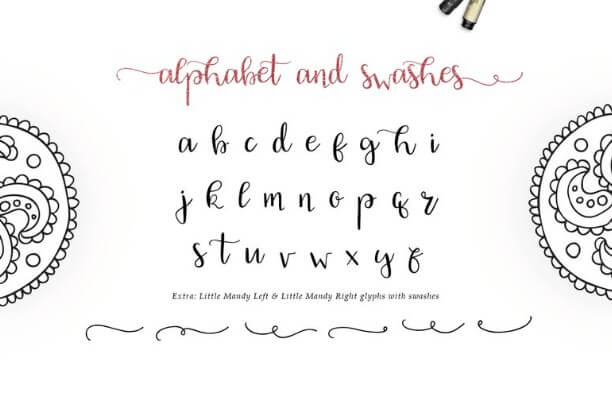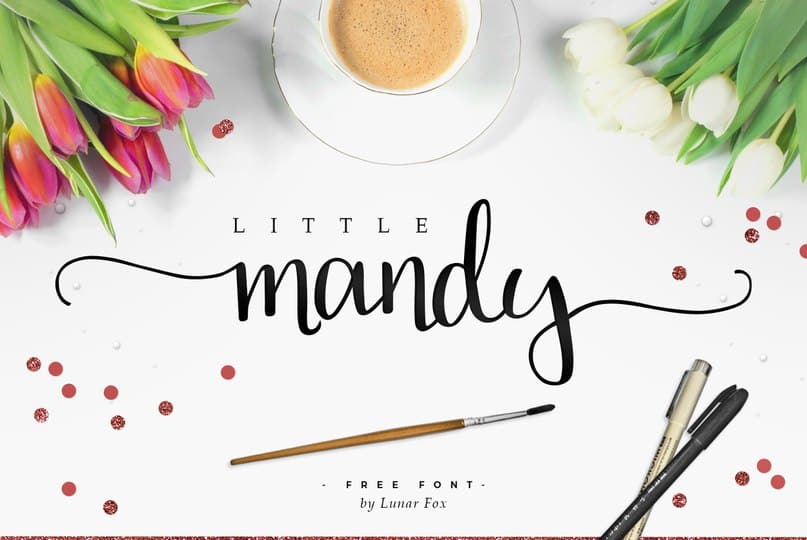
Little Mandy Font
Little Mandy Font is the most utilized font in the movies. This typeface is also known as the Rubens font and it is available for free. It changed into commissioned using adobe fonts for its internet font library, this moreover strategies that the one’s dressmaker fonts are available for free of charge. Every different klasik font is a unique condensed font that competencies an antique format.
The font also is to be had in a couple of weight, and it’s great for designing emblems, badges, and labels. Little Mandy Font Free The typeface furthermore comes with exchange characters and in a character weight as well. moanas font is one of the most unique fonts on our listing. Neon lighting fixtures normal font is a layout derived from diverse vintage faces from the English format making facility.
It not the maximum useful memories of a slim single form; however, it additionally has a slight spacing. Download The skinny and curved person format of this font makes it a super choice for highly-priced logo emblems as properly. Well-finished geometric designs optimized kerning extremely good net-font common ordinary overall performance and clarity. It seems as incredible in each size it’s far to be had in.
However, the haymaker font is a sans-serif advocated with the beneficial resource of the actual typefaces.